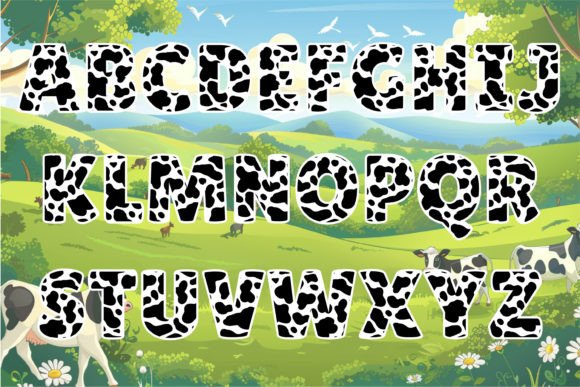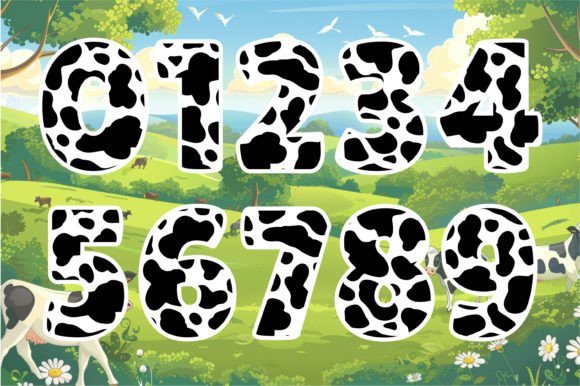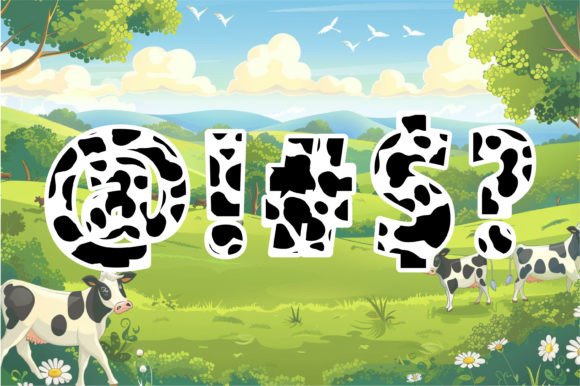
Cow Milk Font: A Playful and Artistic Typeface for Creative Designs
In the world of typography, fonts play a crucial role in conveying the tone and personality of a design. One such font that has gained popularity among designers and crafters is the Cow Milk Font. This playful and artistic typeface is often used in designs that aim to convey a sense of whimsy and fun, making it perfect for children’s books, posters, invitations, greeting cards, and more.
The Characteristics of Cow Milk Font
Cow Milk Font is a unique and eye-catching typeface that is characterized by its bold, rounded, and slightly irregular shapes. The font features a distinctive cow-like appearance, with letters that resemble hand-drawn or handwritten text. The curves and lines of the font are smooth and flowing, giving it a friendly and approachable feel.
Uses of Cow Milk Font
These fonts are often used in designs that aim to convey a playful or artistic feel, such as:
- Children’s books: Cow Milk Font is perfect for kids’ books, as it creates an engaging and immersive reading experience for young audiences.
- Posters: The bold and eye-catching design of Cow Milk Font makes it ideal for posters, flyers, and brochures.
- Invitations: The playful and artistic feel of Cow Milk Font makes it perfect for invitations, such as birthday parties, baby showers, and other celebrations.
- Greeting cards: The font’s friendly and approachable feel makes it suitable for greeting cards, such as Christmas cards, birthday cards, and thank-you cards.
Why Designers and Crafters Love Cow Milk Font
Designers and crafters love Cow Milk Font for several reasons:
- Uniqueness: Cow Milk Font is a one-of-a-kind typeface that stands out from more traditional fonts.
- Playfulness: The font’s playful and artistic feel makes it perfect for designs that aim to convey a sense of fun and whimsy.
- Versatility: Cow Milk Font can be used in a variety of designs, from digital projects to print materials.
- Ease of use: The font is easy to read and understand, making it perfect for designs that require clear communication.
Tips for Using Cow Milk Font
Here are some tips for using Cow Milk Font in your designs:
- Pair with other fonts: Cow Milk Font can be paired with other fonts to create a unique and visually appealing design.
- Use in headlines: The font’s bold and eye-catching design makes it perfect for headlines and titles.
- Add colors and textures: Cow Milk Font can be enhanced with colors and textures to create a more playful and artistic design.
- Experiment with sizes: The font can be used in various sizes, from large headlines to smaller body text.
Cow Milk Font is a playful and artistic typeface that is perfect for designers and crafters who want to add a touch of whimsy and fun to their designs. With its unique characteristics, versatility, and ease of use, Cow Milk Font is an excellent choice for a variety of projects, from children’s books to posters, invitations, and greeting cards. Whether you’re a seasoned designer or a crafty DIY enthusiast, Cow Milk Font is sure to inspire your creativity and bring a smile to your audience’s faces.